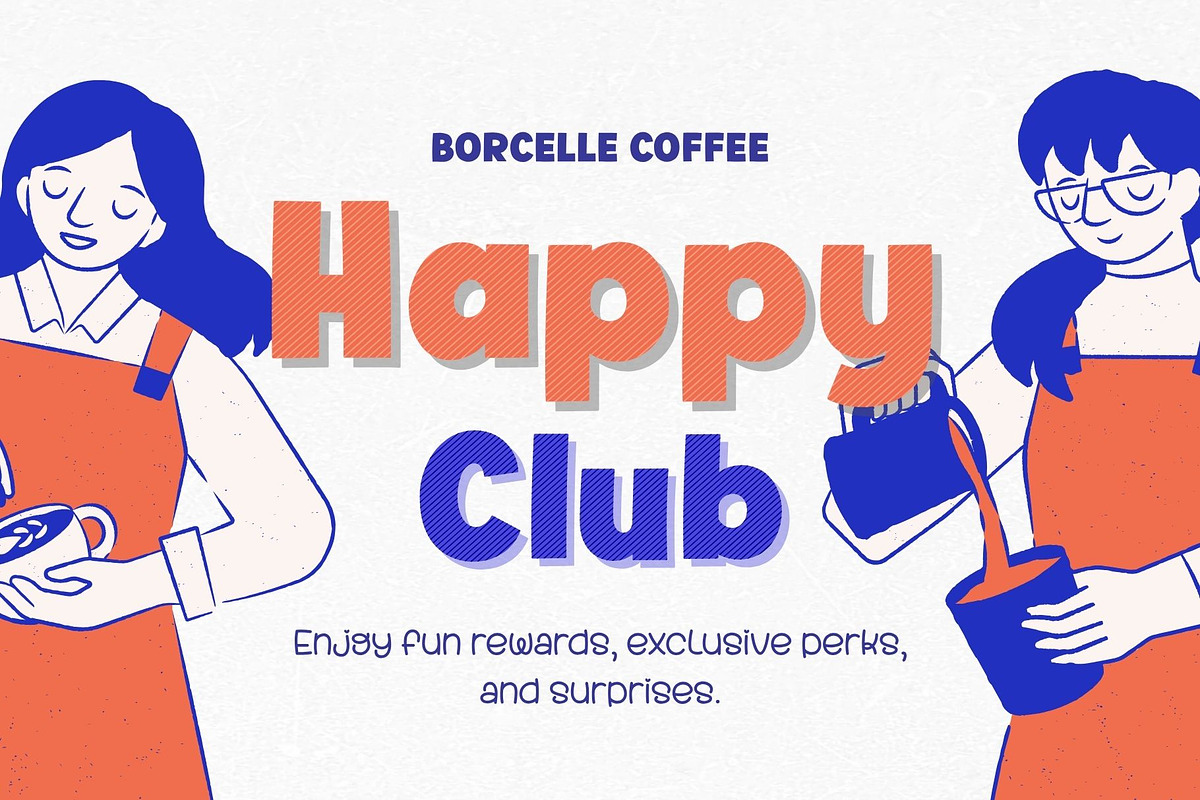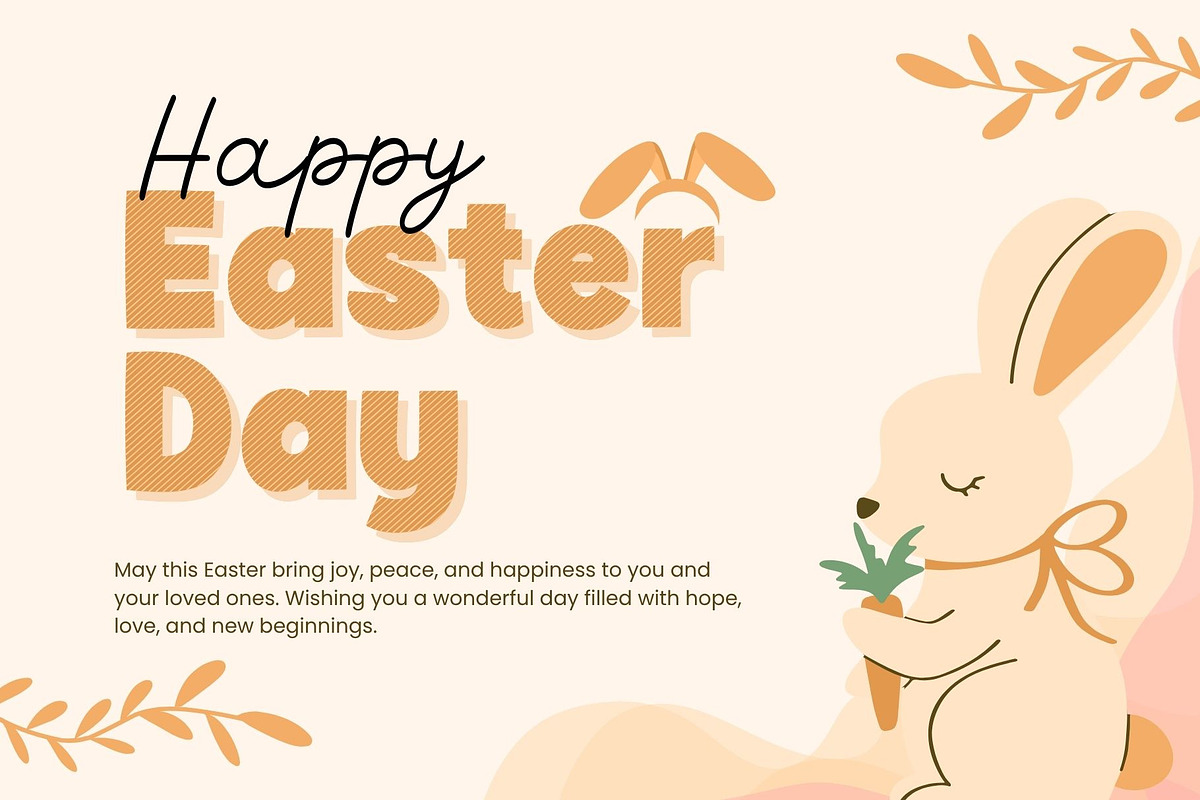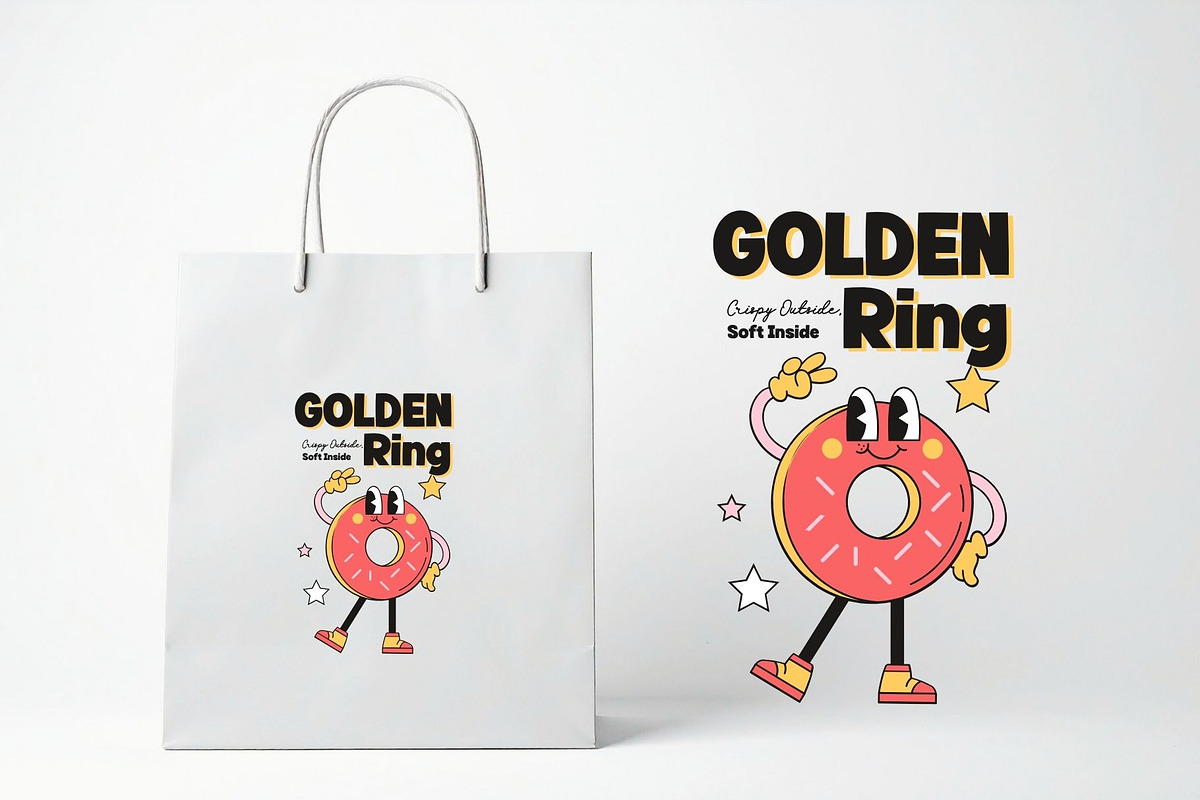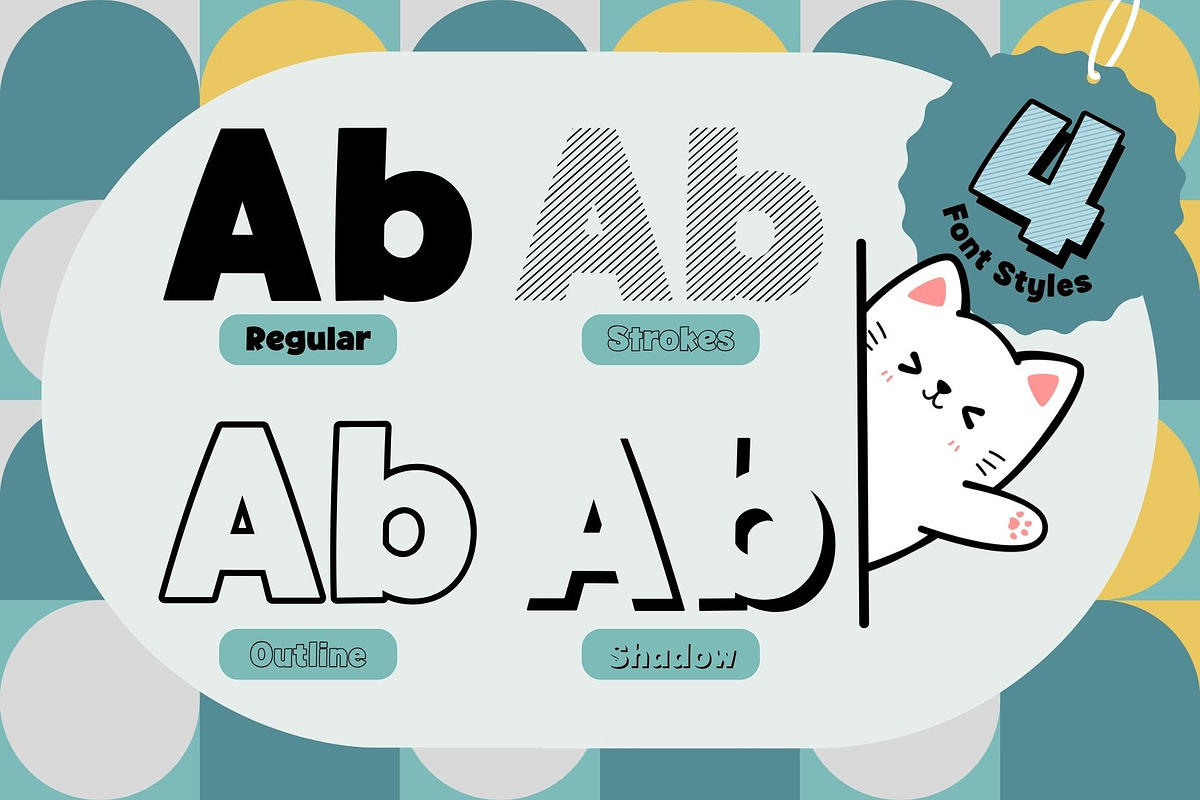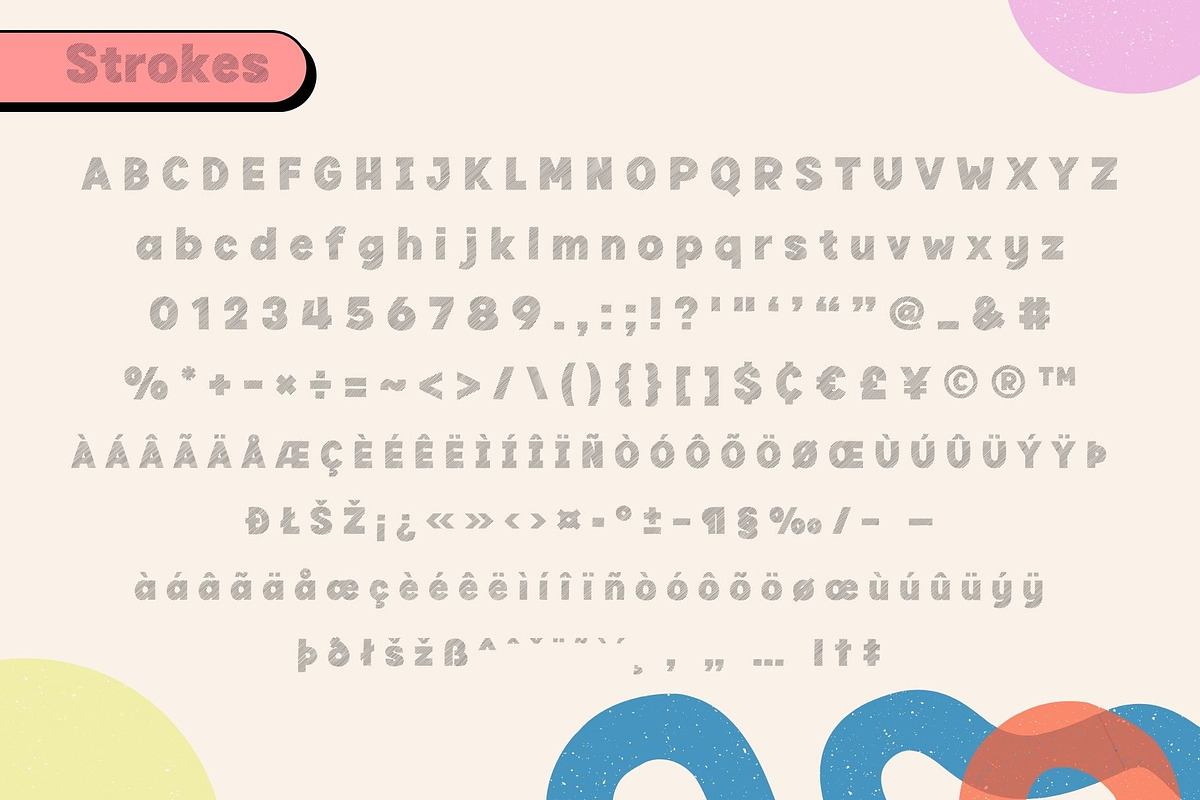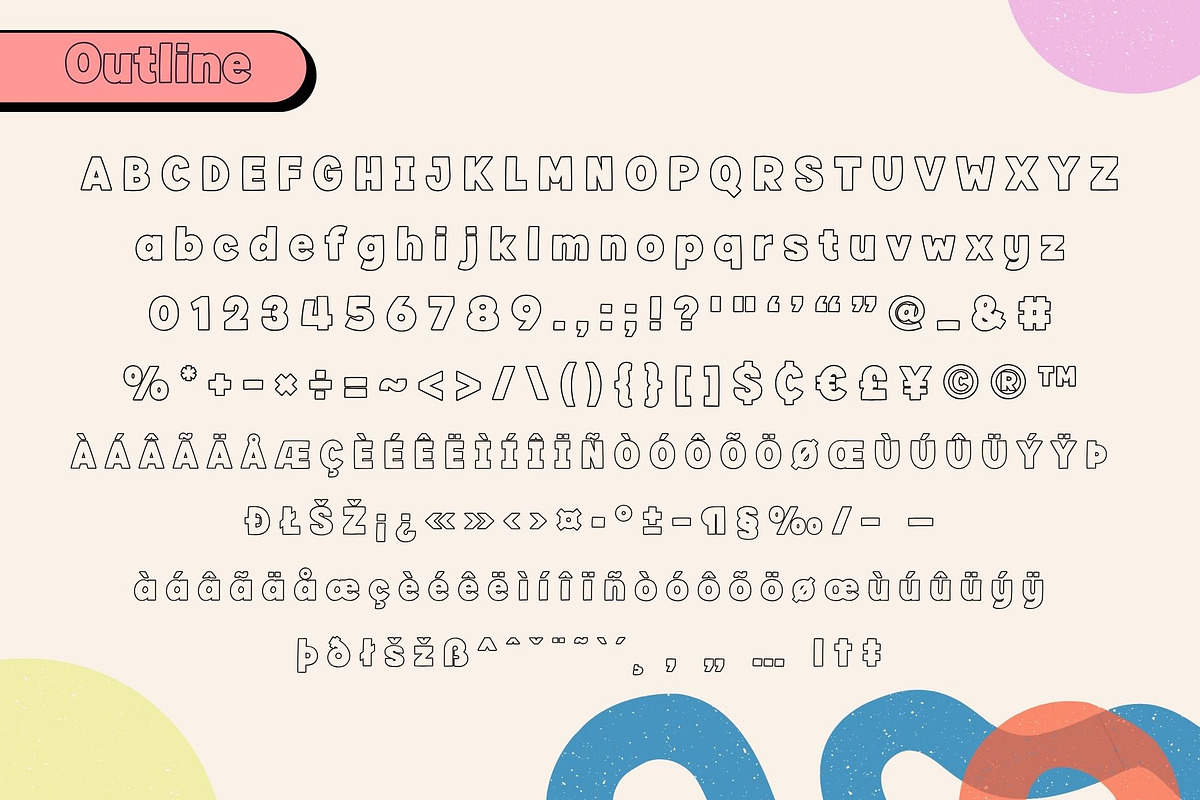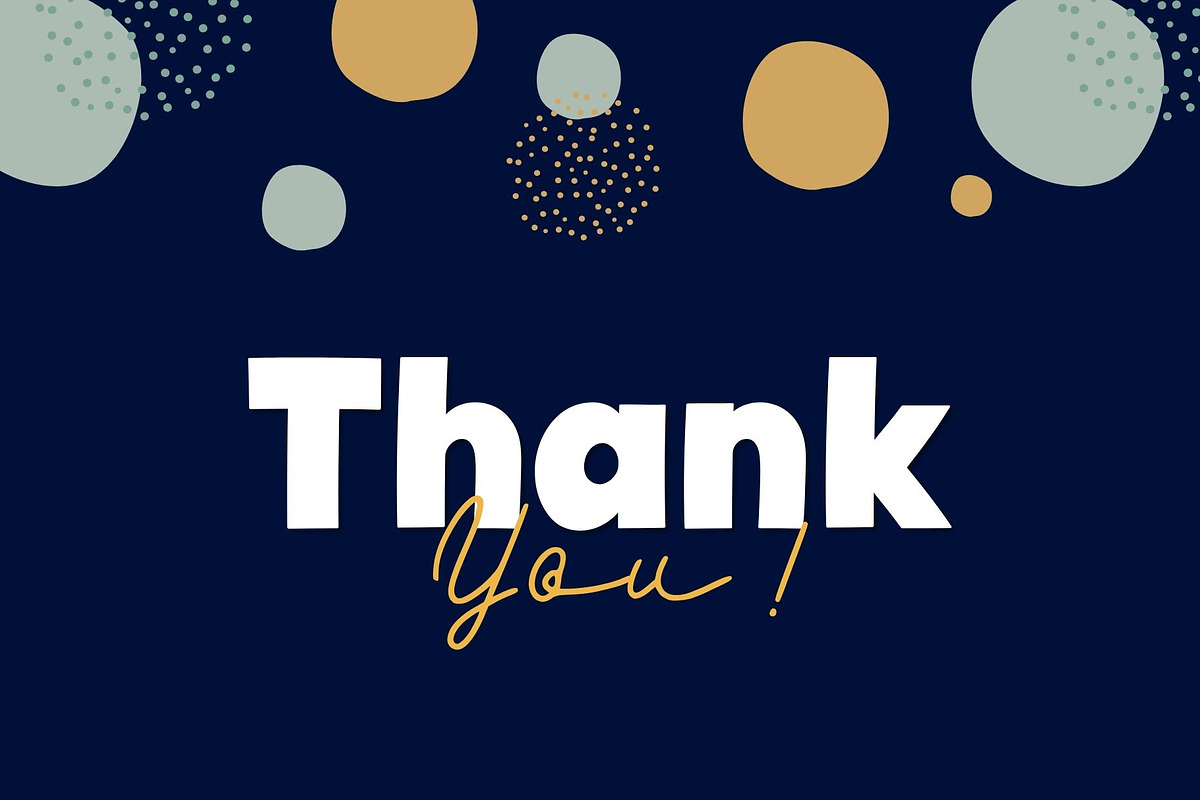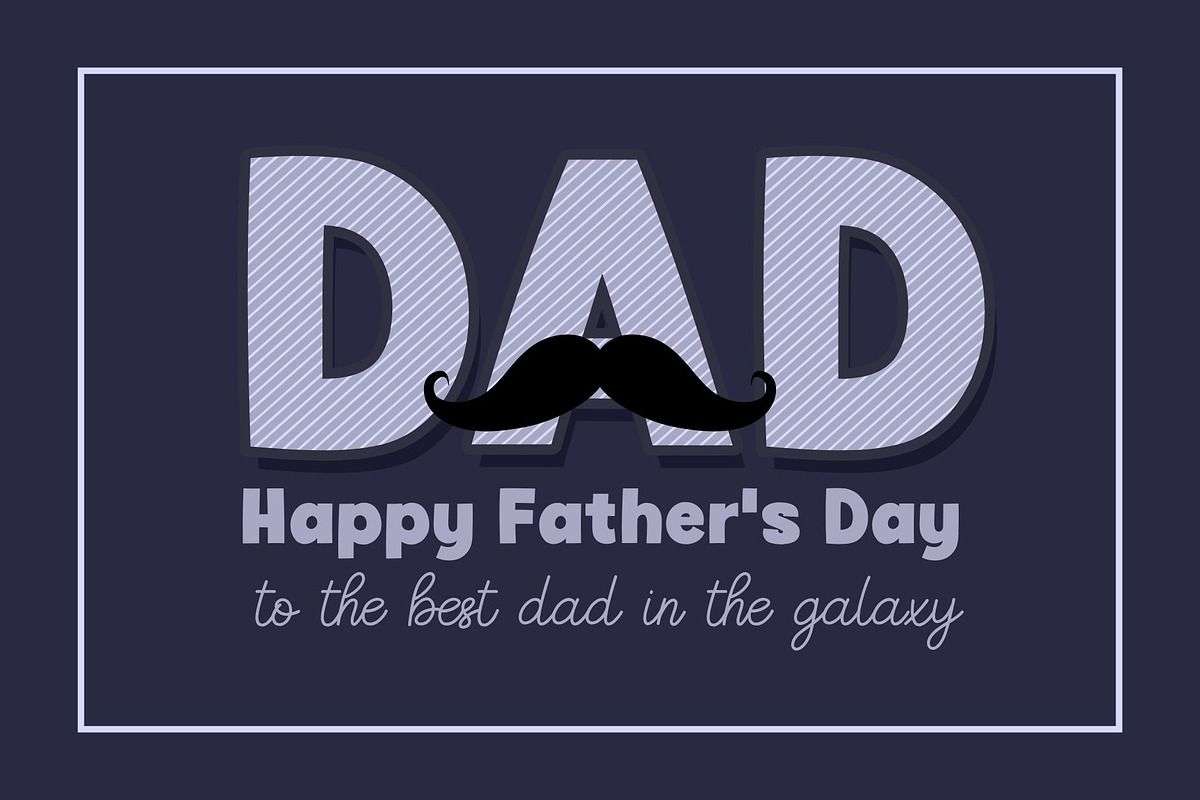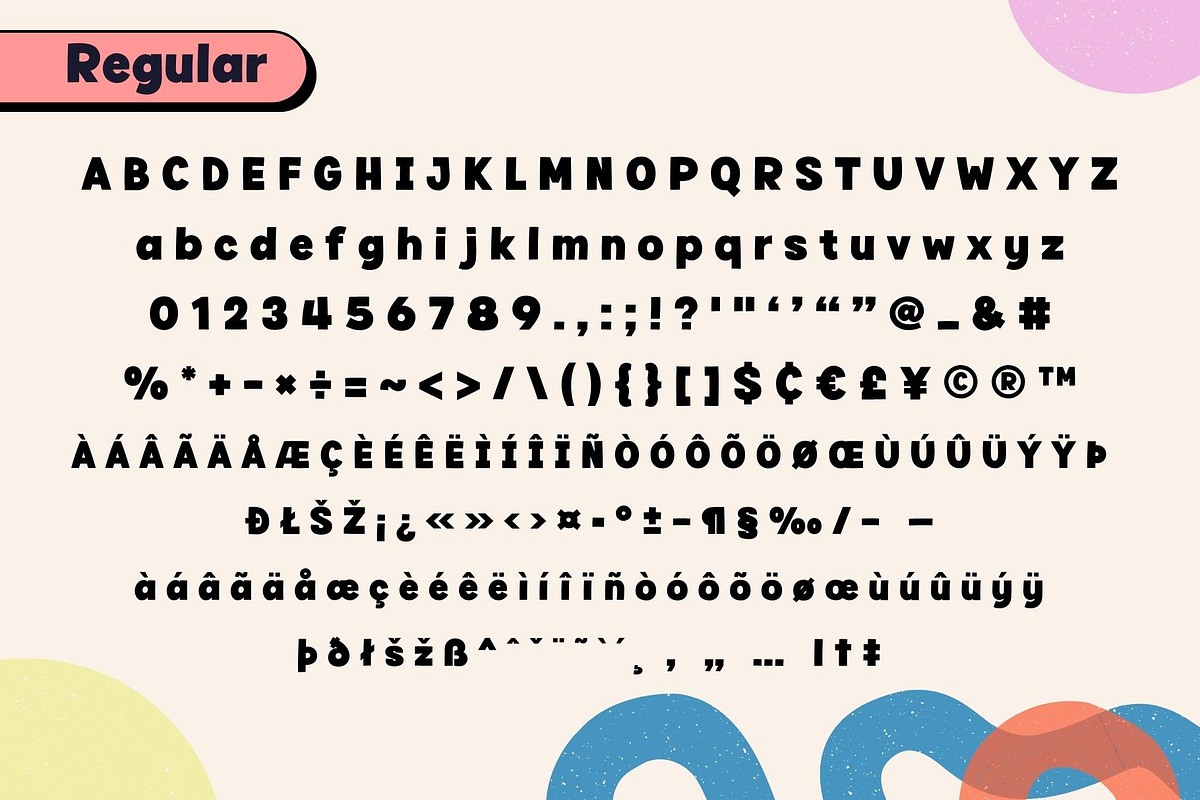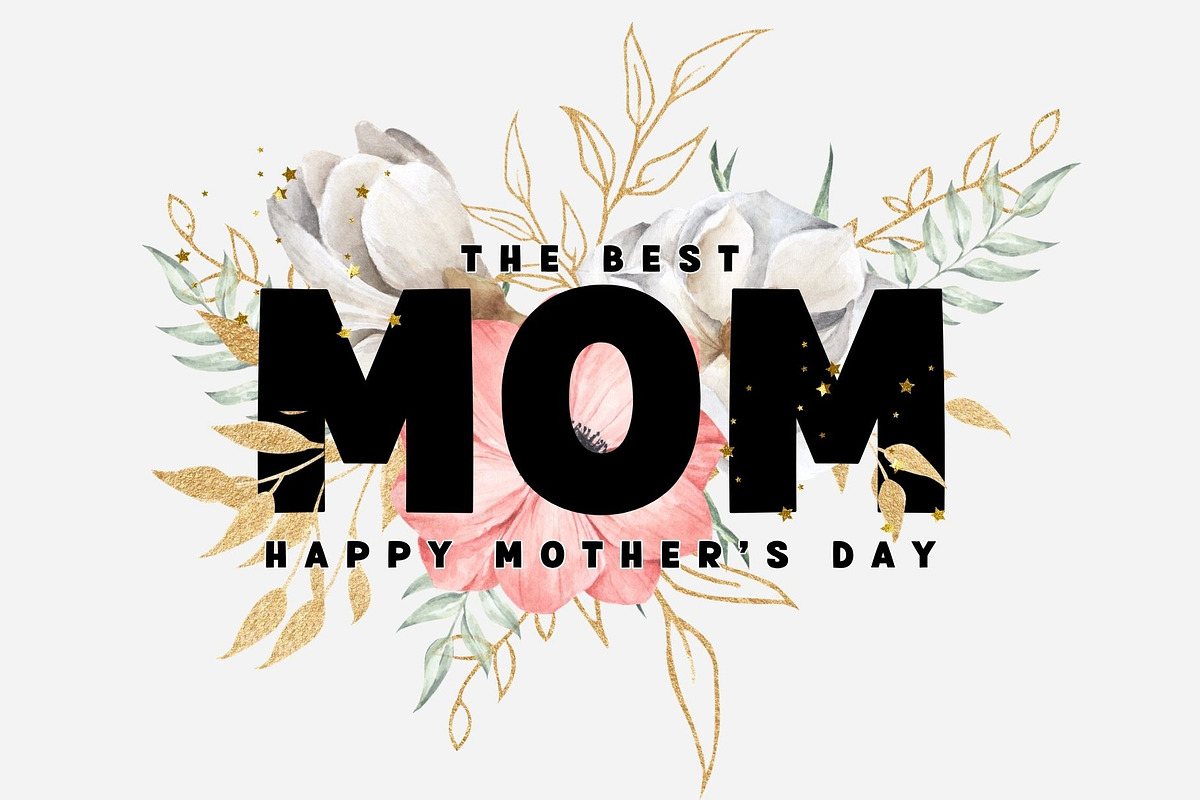
Fox Victor 4 Font Style
✨Fox Victor – Fun & Playful Display Font✨
Introducing Fox Victor, a bold and playful display font designed to bring cheerful energy to your creative projects! With its chunky letterforms, smooth curves, and fun personality, Fox Victor is perfect for eye-catching designs that need a cute yet confident look.
Whether you are creating cute product branding or vibrant craft projects, Fox Victor helps your designs stand out instantly!